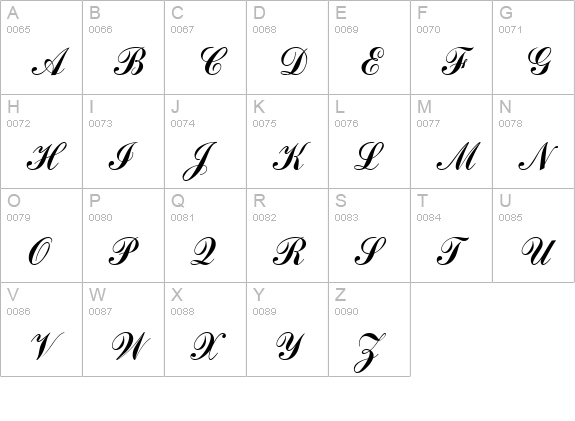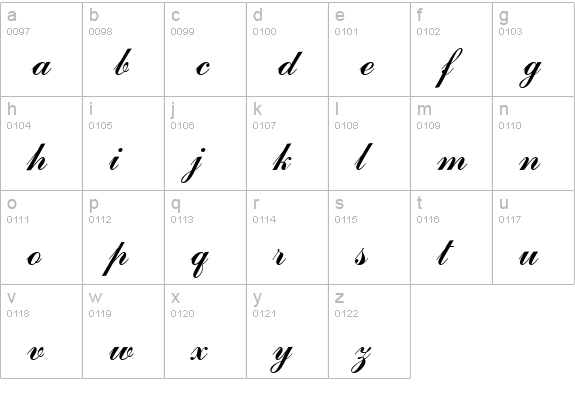
CommercialScrT Font Details
CommercialScrT font is a versatile and stylish typeface that exudes elegance and professionalism. Its clean lines and modern design make it perfect for a wide range of commercial purposes, from advertising to branding to packaging. The font features sleek, bold lettering that commands attention and conveys a sense of confidence and sophistication. What sets CommercialScrT font apart is not just its striking appearance, but also the fact that it is completely free to download. That's right - you can access this high-quality font at no cost, making it a valuable resource for designers, marketers, and businesses looking to elevate their visual content. Simply visit FontsMarket.com to get your hands on this exceptional font and take your projects to the next level.